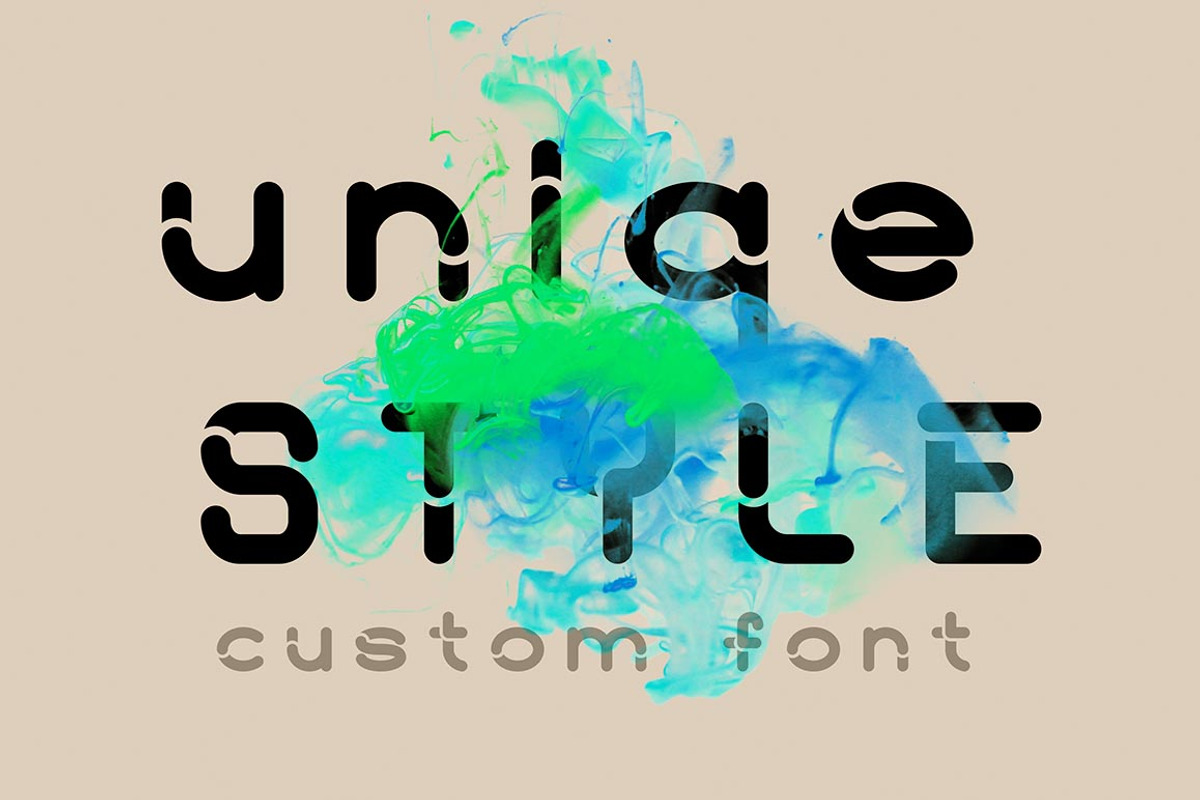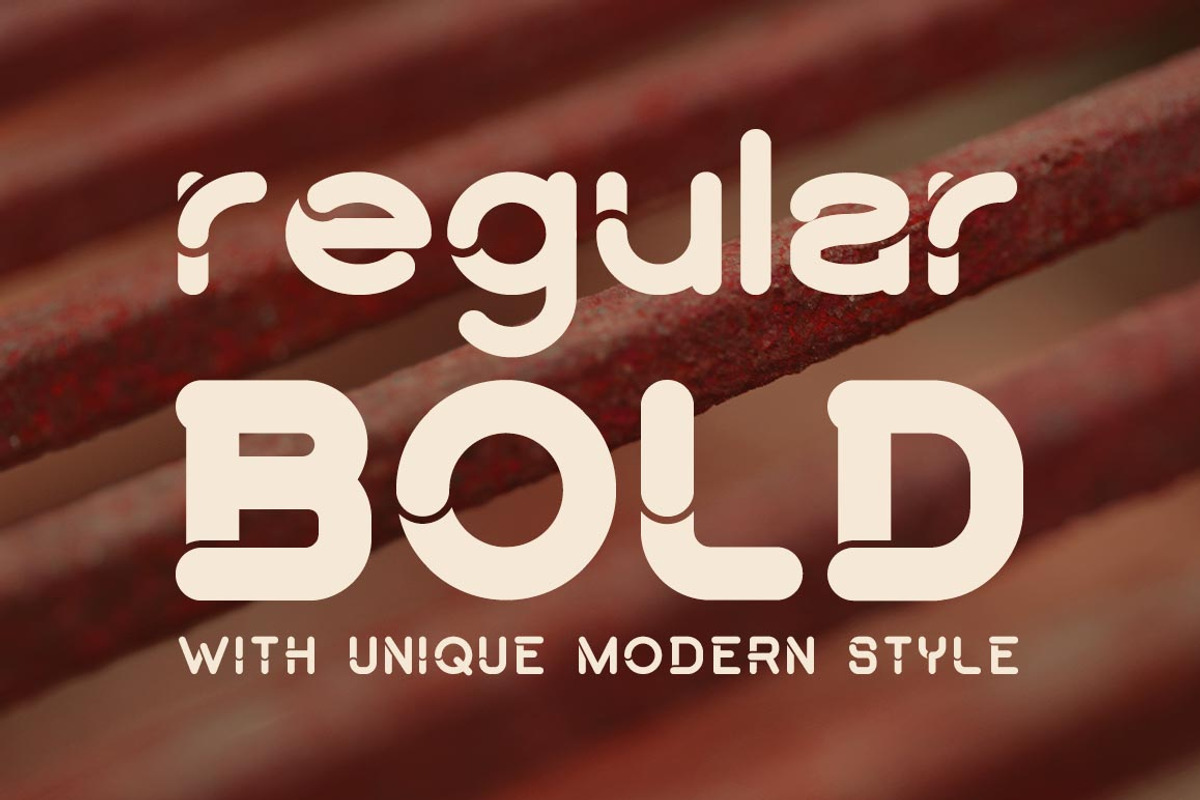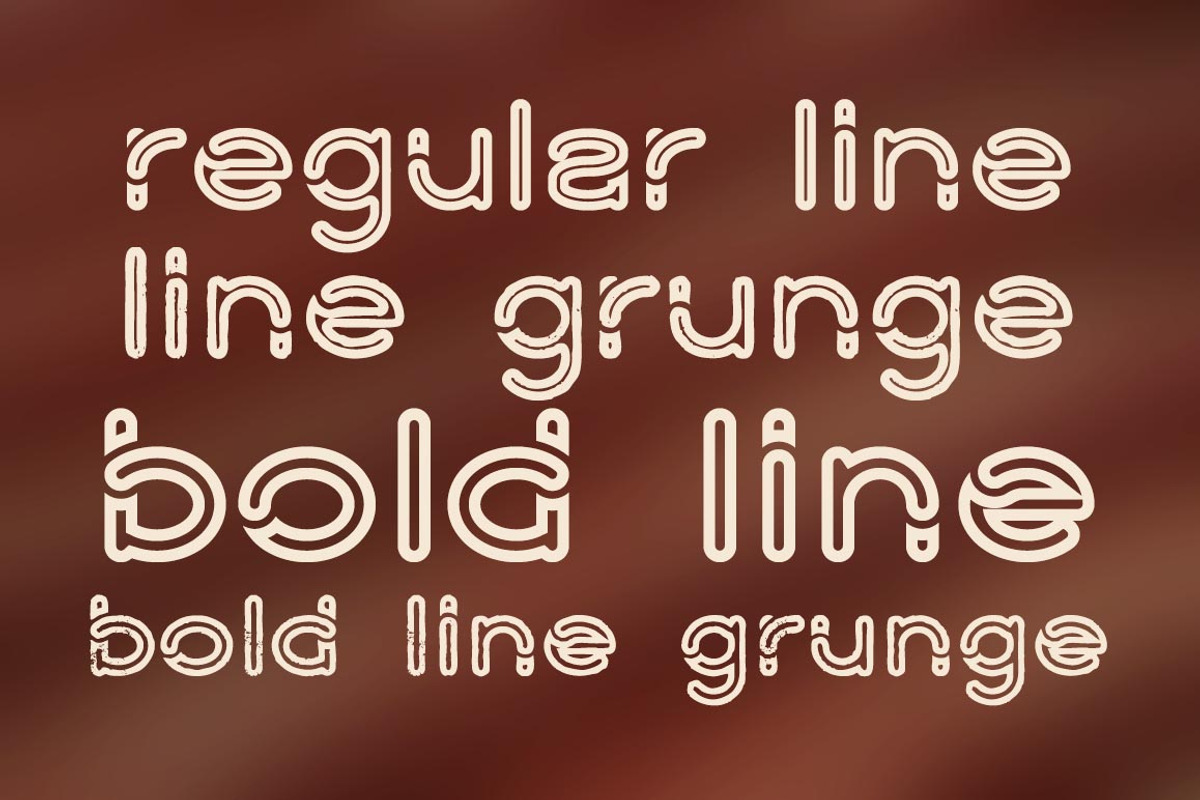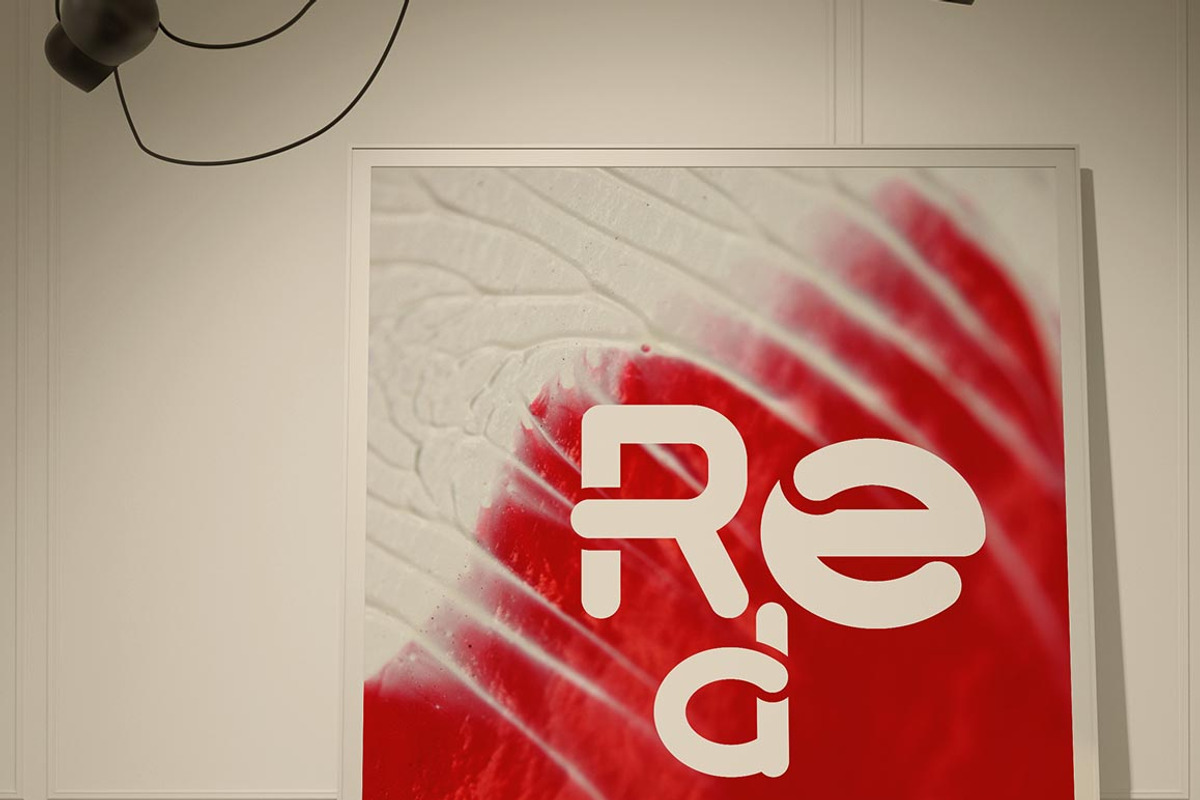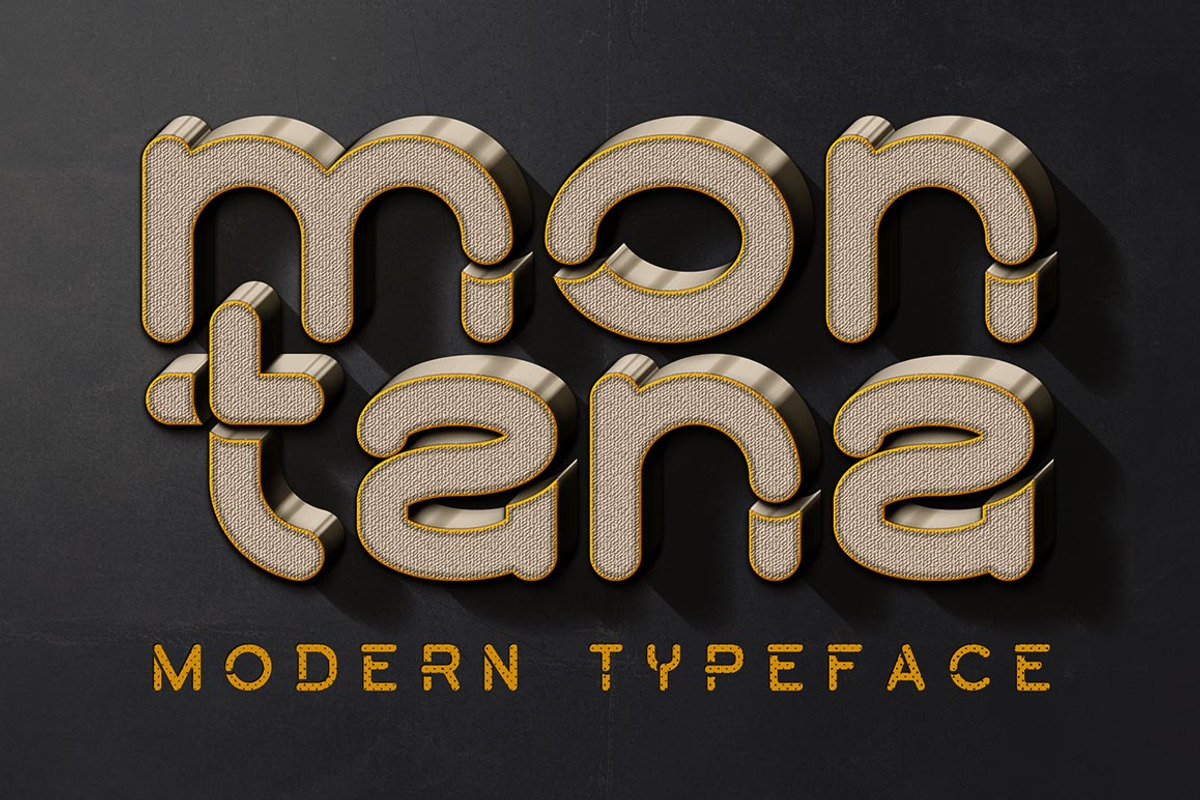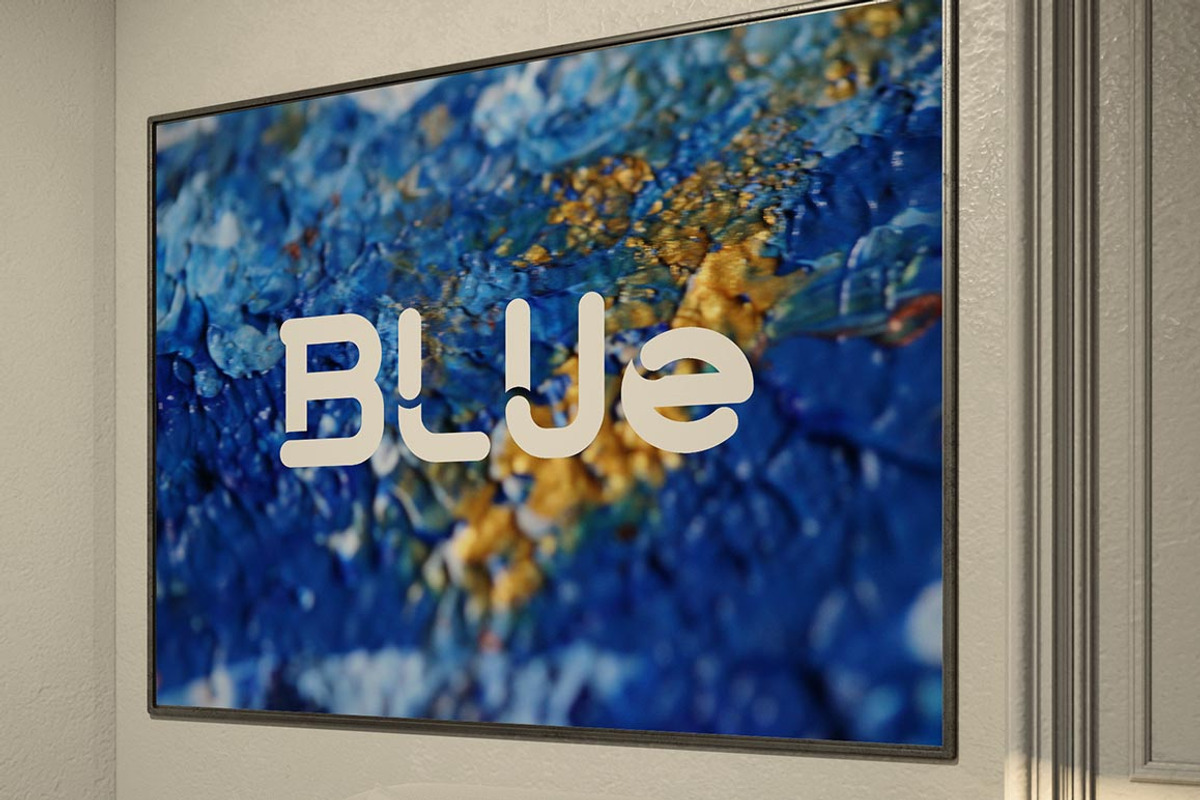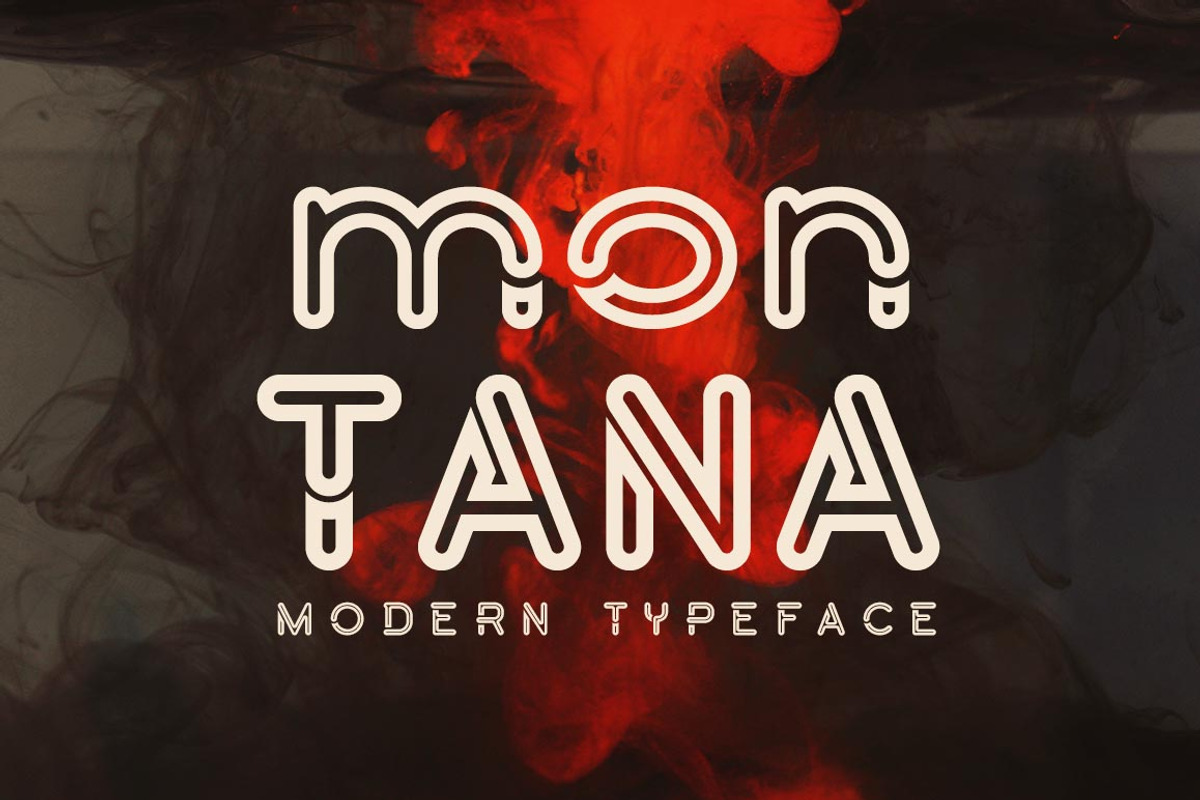
Montana Font
Montana Font by MIIM is a font selected for branding, posters, packaging, typography.
Why Montana Font is worth a look
Montana Font by MIIM fits naturally into Branding, posters, packaging, typography.